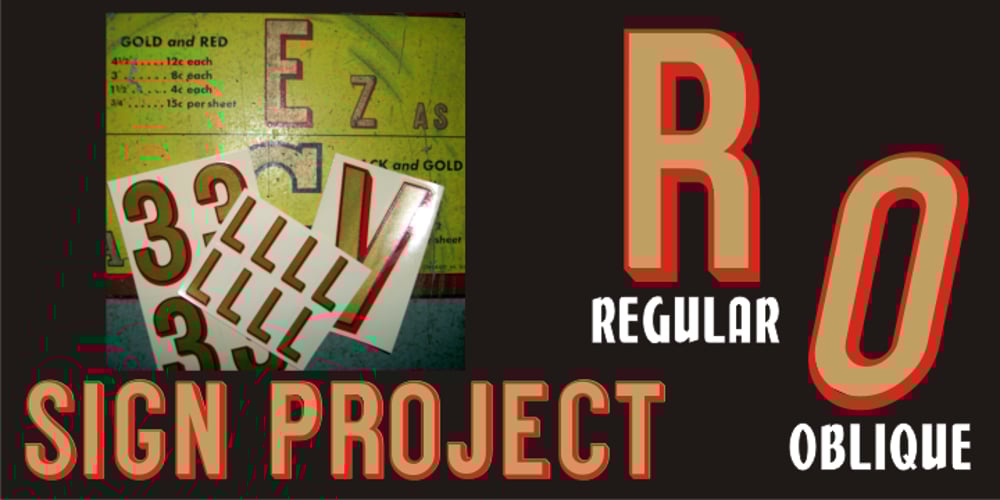
Sign Project JNL Font Family was designed by Jeff Levine and published by Jeff Levine. Sign Project JNL contains 2 styles and family package options. Sign Project JNL is based on vintage water-applied decals once made by the Meyercord Decal Company of Chicago (and later Carol Stream), Illinois. These decals were popular during the 1950s and 1960s for window signage, boat identification, mailbox names and numbers and hundreds of other projects.